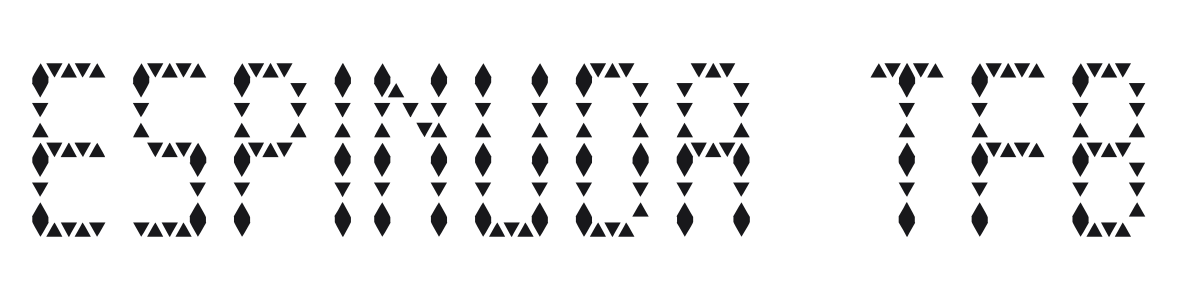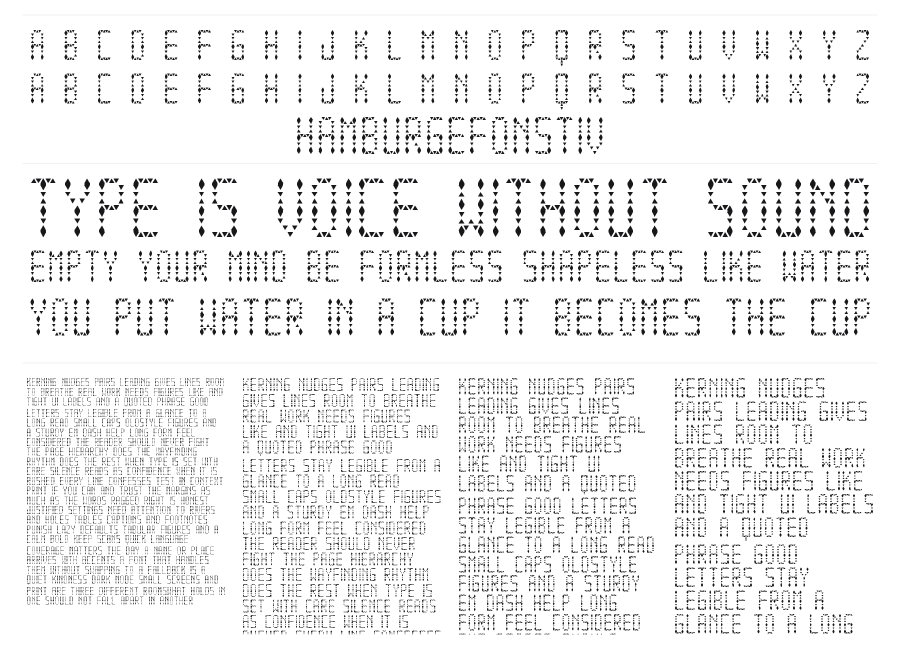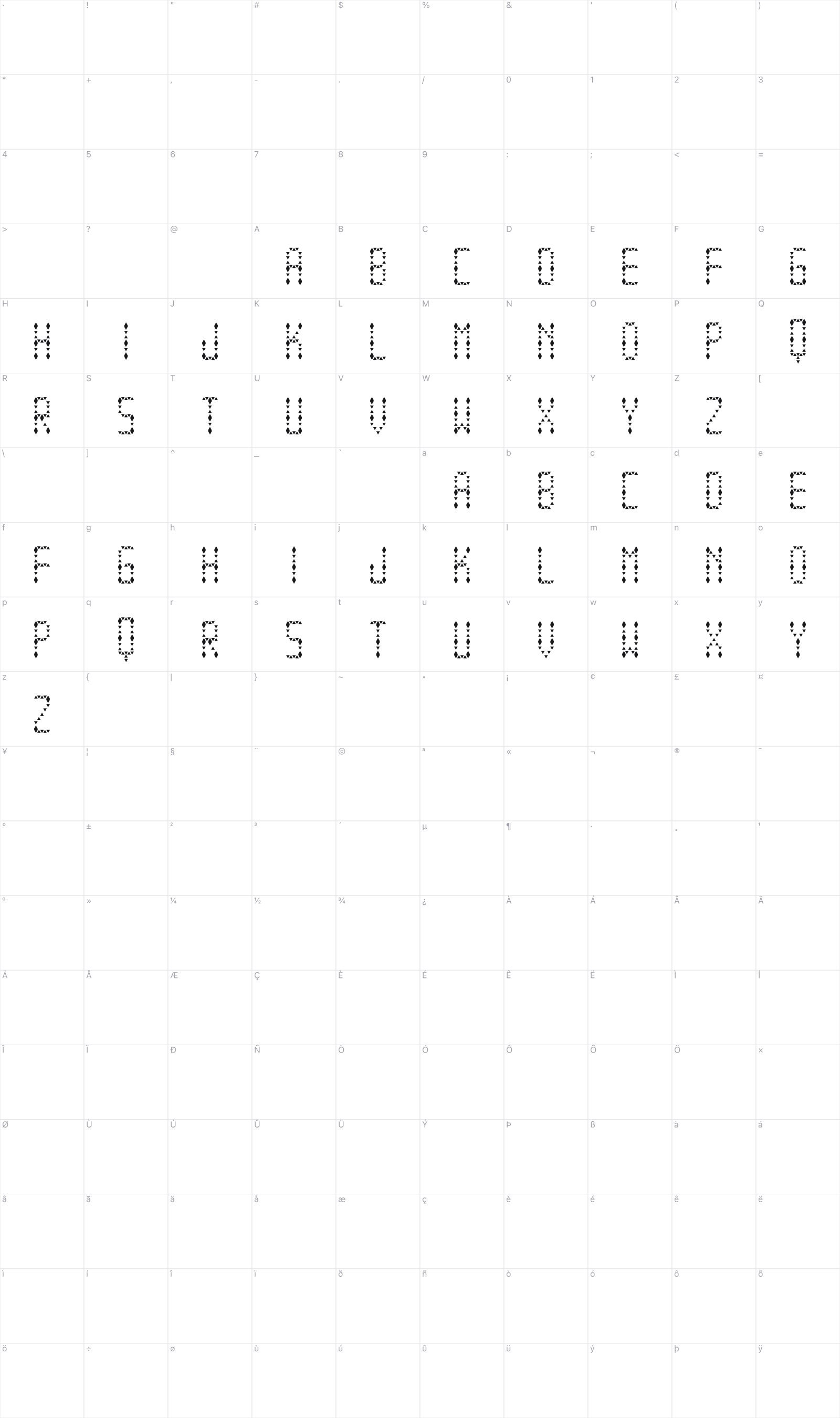
Espinuda TFB
Espinuda TFB is a display font built entirely from repeating triangles and diamond shapes, with each letter assembled like a geometric mosaic. The construction gives it a dual personality that sits somewhere between tribal pattern-making and digital pixel art. Strong at large sizes where the individual fragments read clearly.